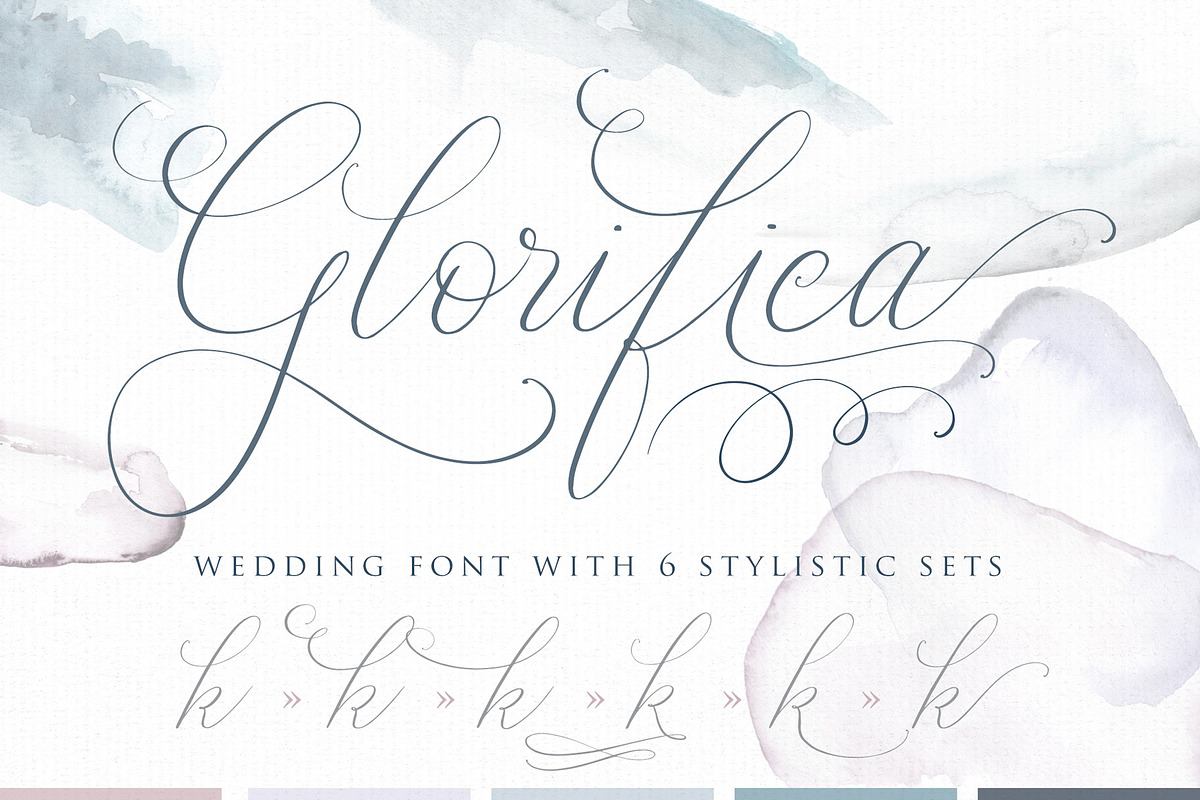
Please note that you must purchase this font for commercial use. You can download Glorifica Wedding Font for free, strictly for personal testing purposes only. Glorifica is an elegant, romantic script font designed specifically for wedding invitations, stationery, and other special occasion designs. With its smooth curves, graceful flourishes, and timeless style, Glorifica Wedding Font Free Download is perfect for creating luxurious, personalized wedding designs, including invitations, logos, save-the-dates, and more.
The font exudes sophistication, making it ideal for formal events, luxury branding, and delicate designs that need to feel both elegant and intimate. It includes uppercase and lowercase letters, numerals, punctuation, and multilingual support, giving you flexibility across various global projects.
Whether you're working on a romantic wedding invitation, a luxury brand, or an elegant event, Glorifica adds beauty and refinement to your typography.